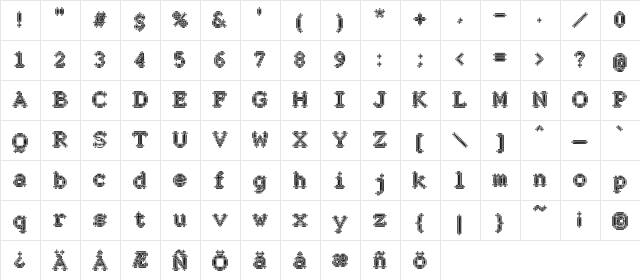
Cryeadn Regular
Design Context for Cryeadn Typeface
Cryeadn takes a measured approach to typography — its balanced proportions and neutral character make it a reliable workhorse for both digital and print work.
Pro Tip: Use Cryeadn in both headline and body roles to test its range before committing to a single application.